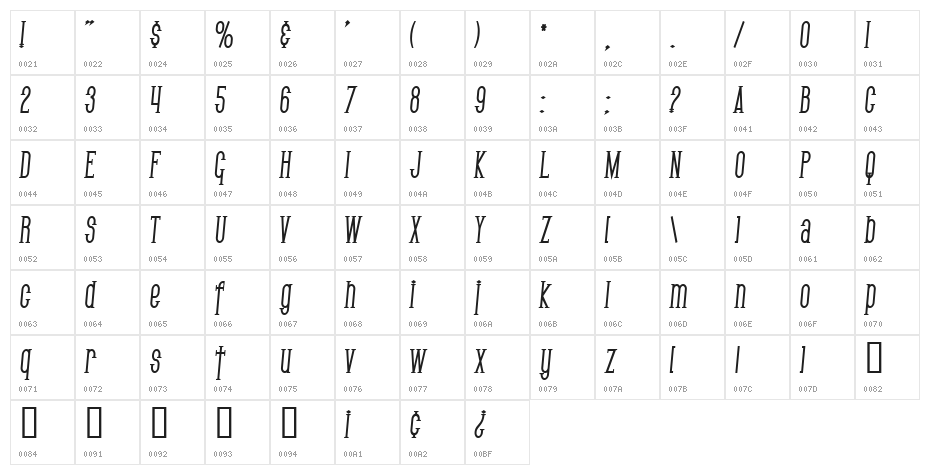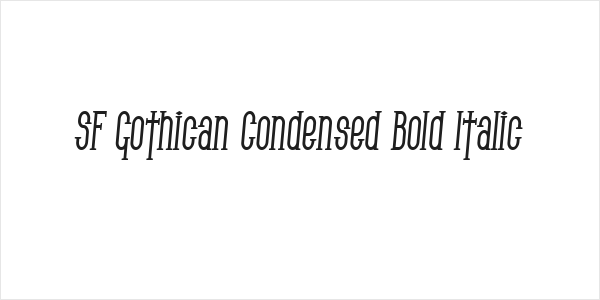
SF Gothican Condensed Bold Italic Font
SF Gothican Condensed Bold Italic Description
This typeface features a bold and italicized style with a condensed width, giving it a strong and dynamic appearance. The characters are tall and narrow, with a slight slant that adds a sense of motion and urgency. The strokes are thick, providing a high contrast that enhances readability and impact. The uppercase and lowercase letters maintain a consistent design, with clean lines and sharp edges. The numerals and special characters are designed to match the overall aesthetic, ensuring uniformity across all text elements.
| Proposed Projects | Ideal for headlines, posters, and branding projects where a strong and modern impression is desired. |